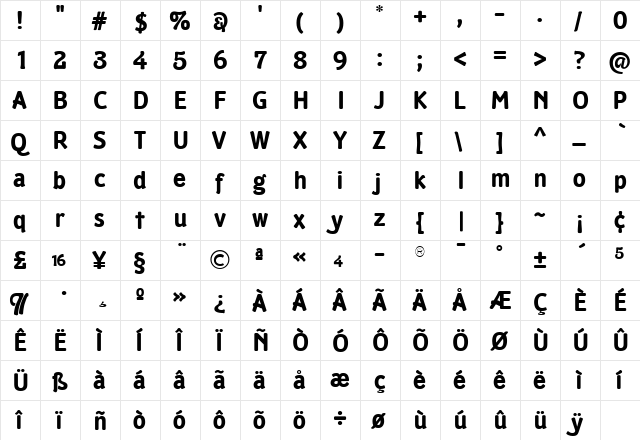
TFMaltbyAntique Extrabold
Design Context for TFMaltbyAntique Typeface
TFMaltbyAntique wears its vintage influences proudly, with letterforms that recall mid-century signage, classic packaging, and nostalgia-driven design. The heavy weight commands attention and anchors typographic hierarchies.
Ideal for diner signage, record shop branding, 70s/80s-themed projects, and heritage product labels.
Font Pairing: Combine TFMaltbyAntique with a simple slab or neutral sans — period-accurate companions reinforce the vintage feel without competing for attention.
Pro Tip: Lean into TFMaltbyAntique's period character by pairing it with aged paper textures, muted colour palettes, and vintage illustration styles.